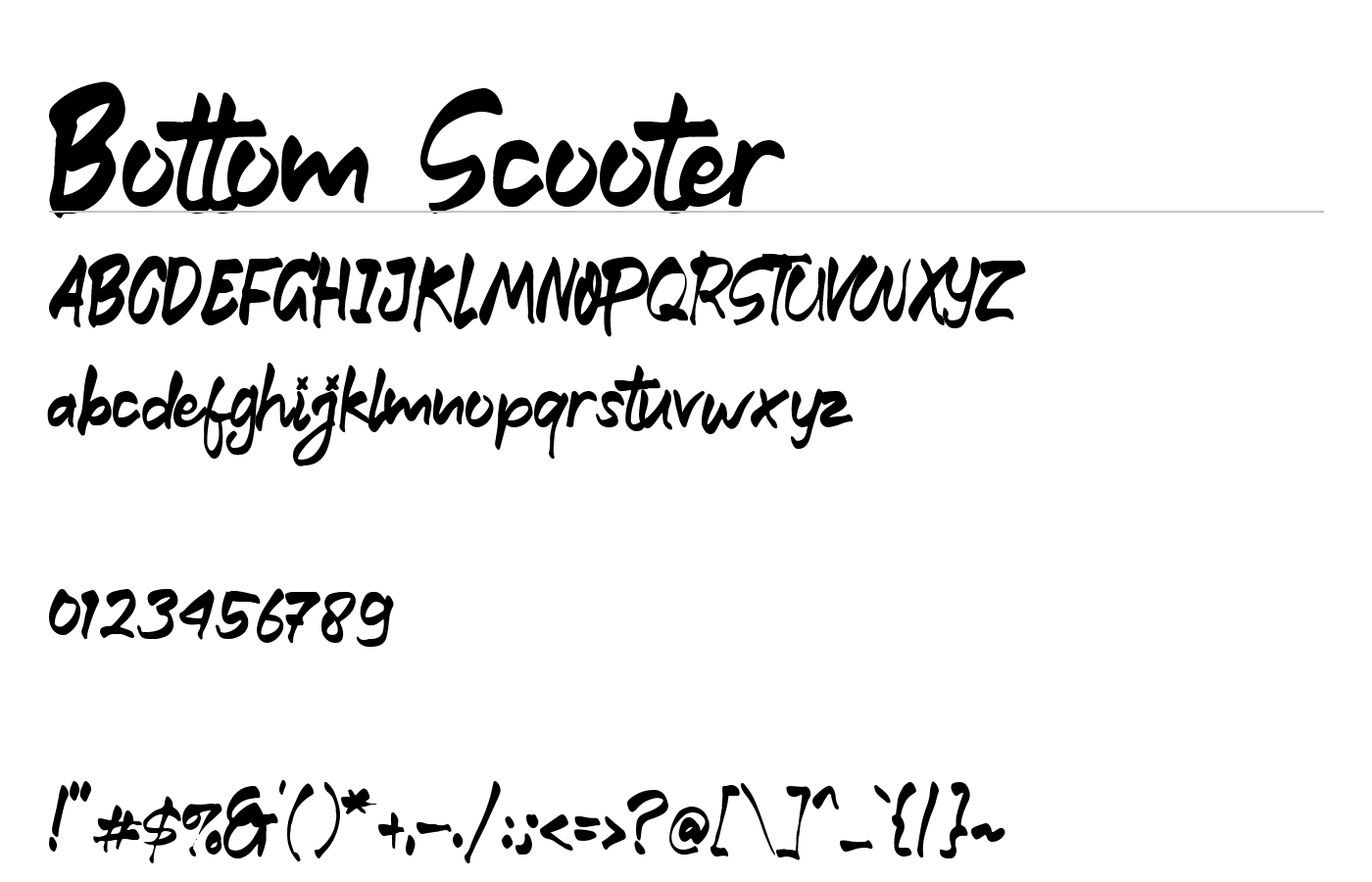
Bottom Scooter is a playful and energetic handwritten script font with a casual, brush-like appearance. Its moderately high x-height and lively strokes give it a friendly, informal vibe, making it perfect for creative branding, posters, and social media where a personal, approachable style is desired. This font works best in headlines or short texts that need a fun, dynamic touch without sacrificing legibility.
Bottom Scooter Font
About Bottom Scooter Font
| Font family | Bottom Scooter Font |
| Designer | Green Adventure Studio. 2020 |